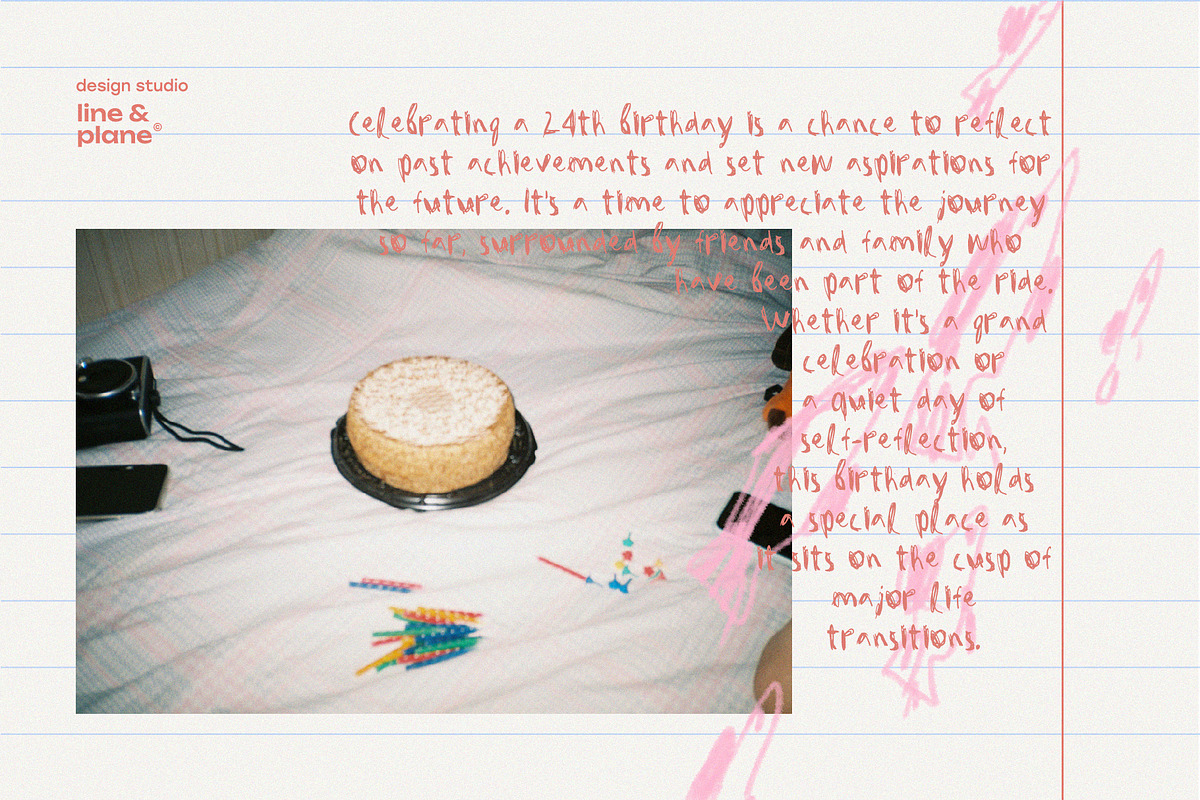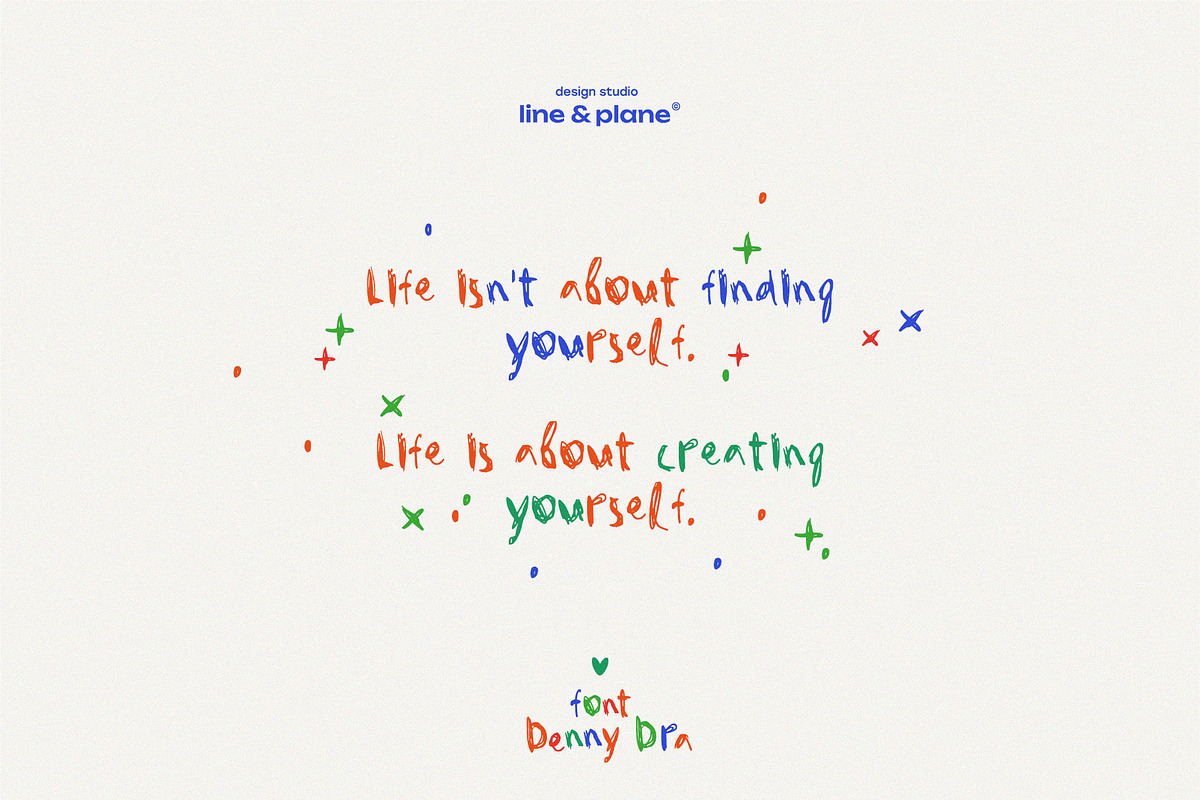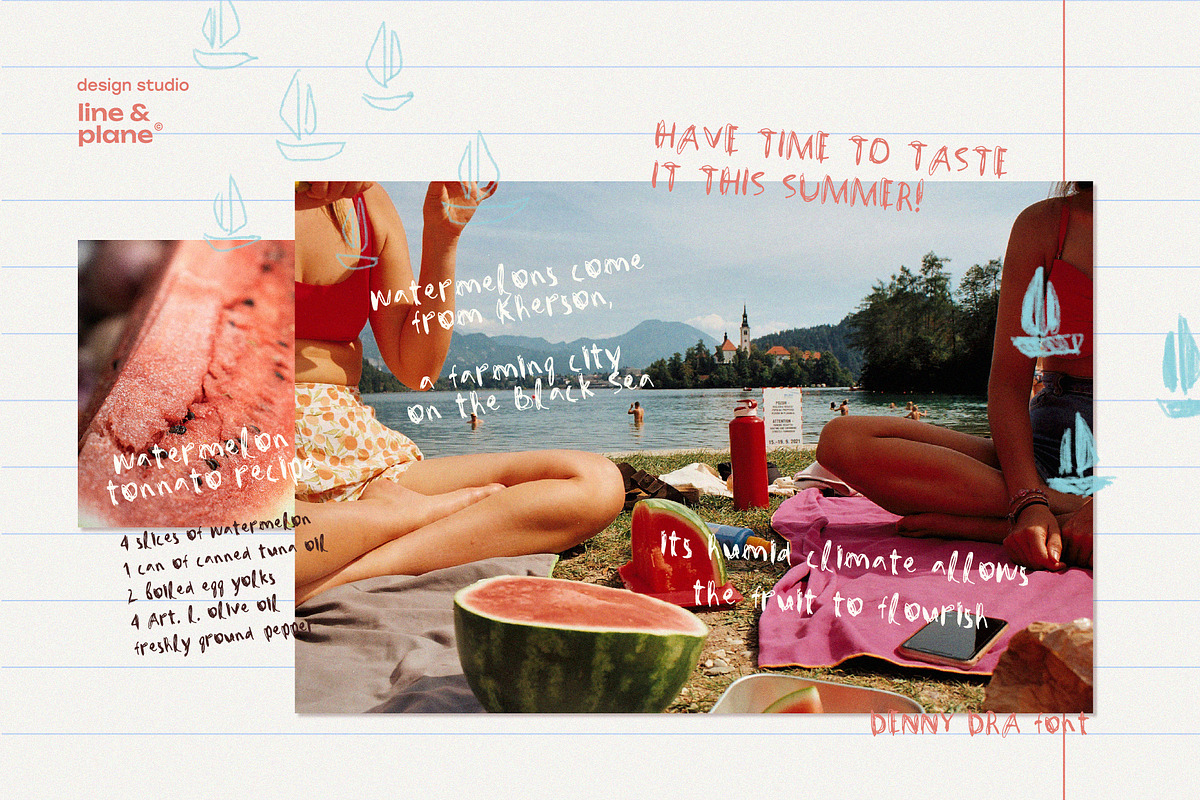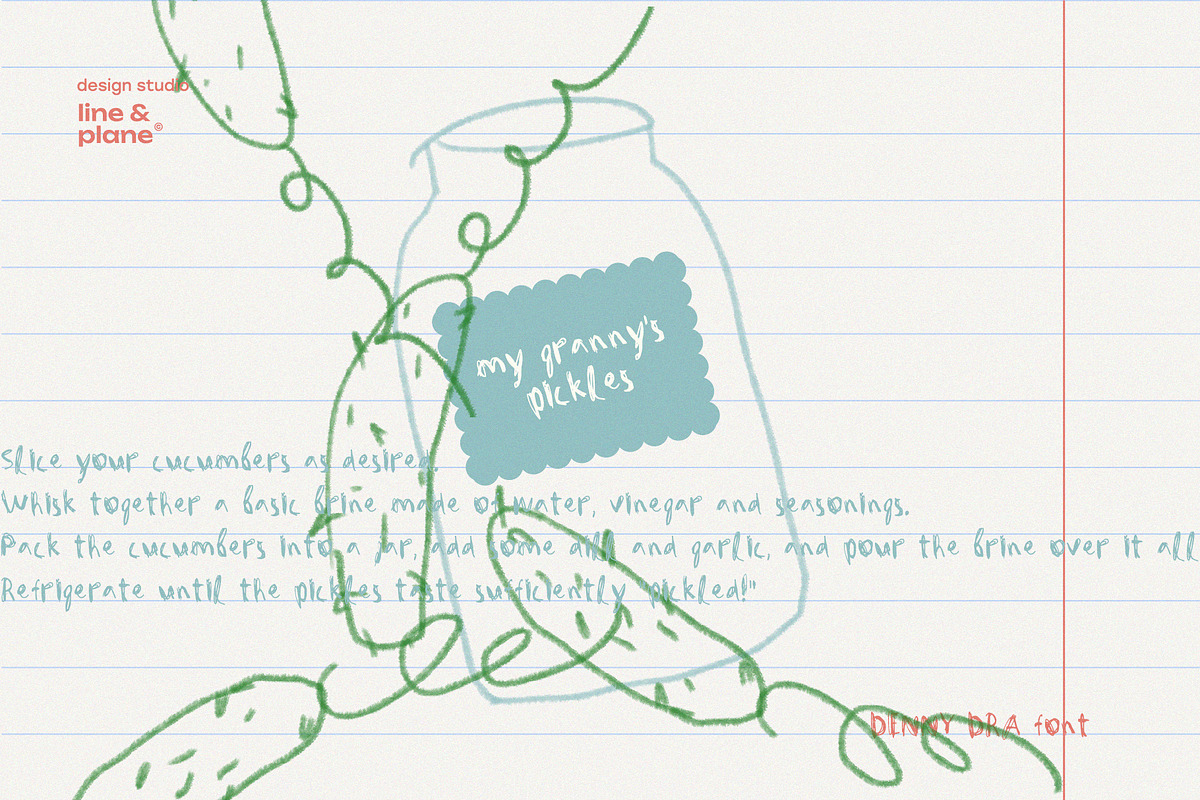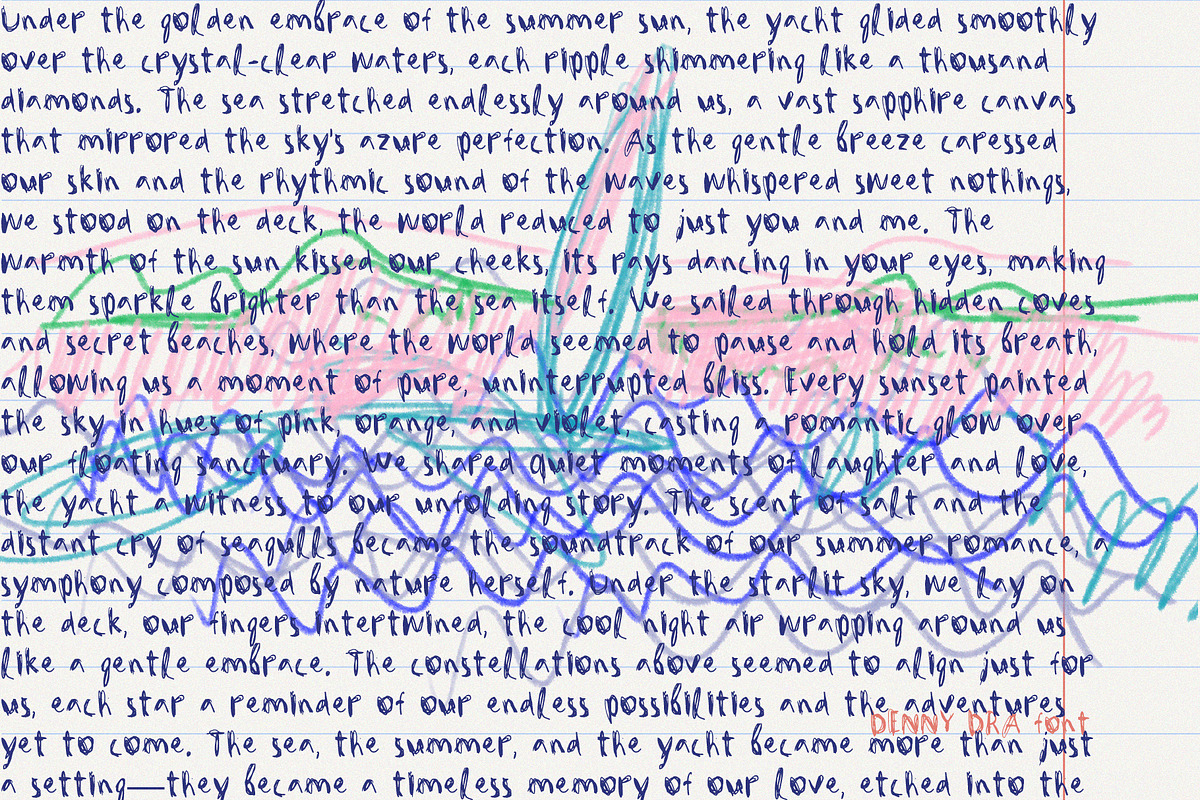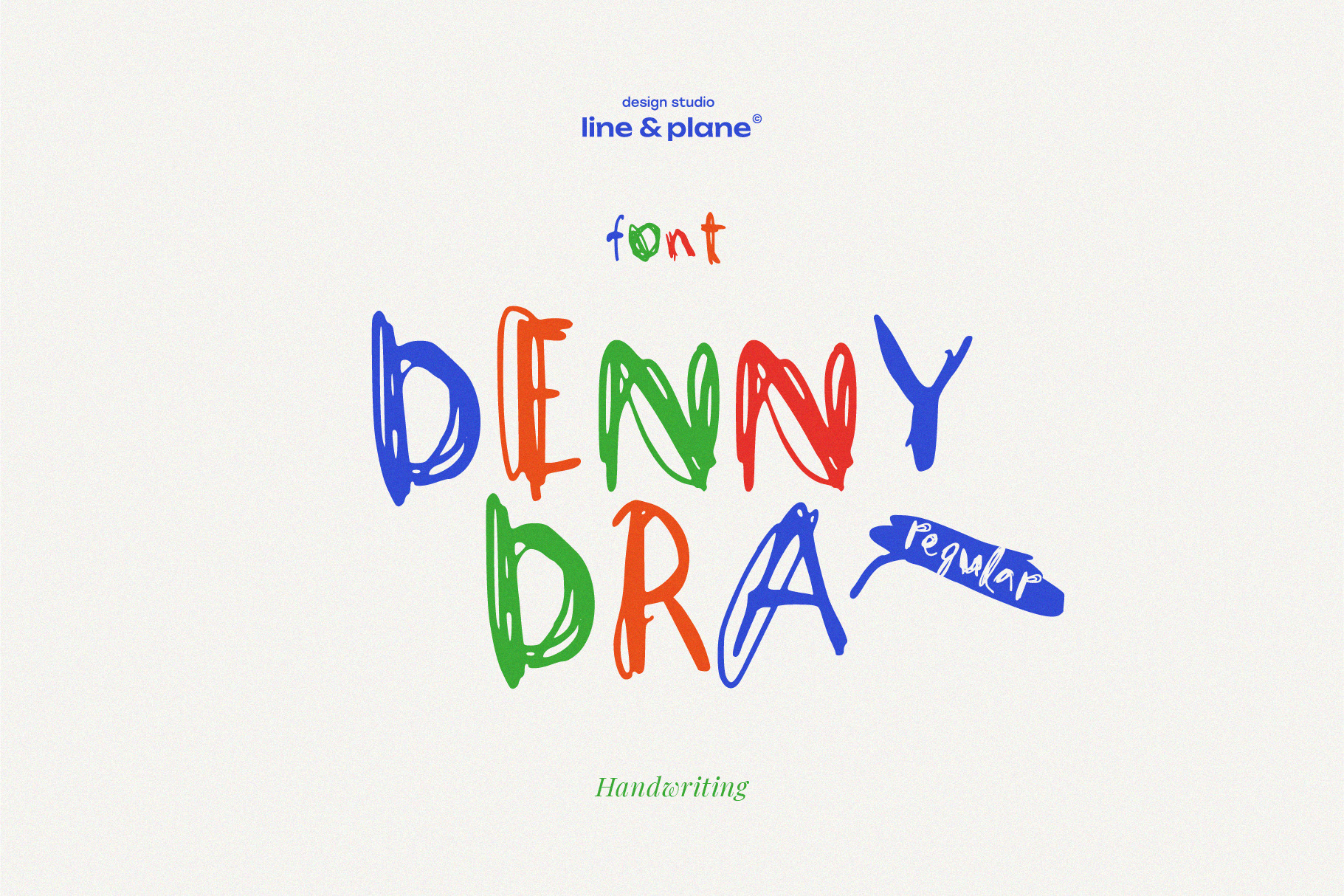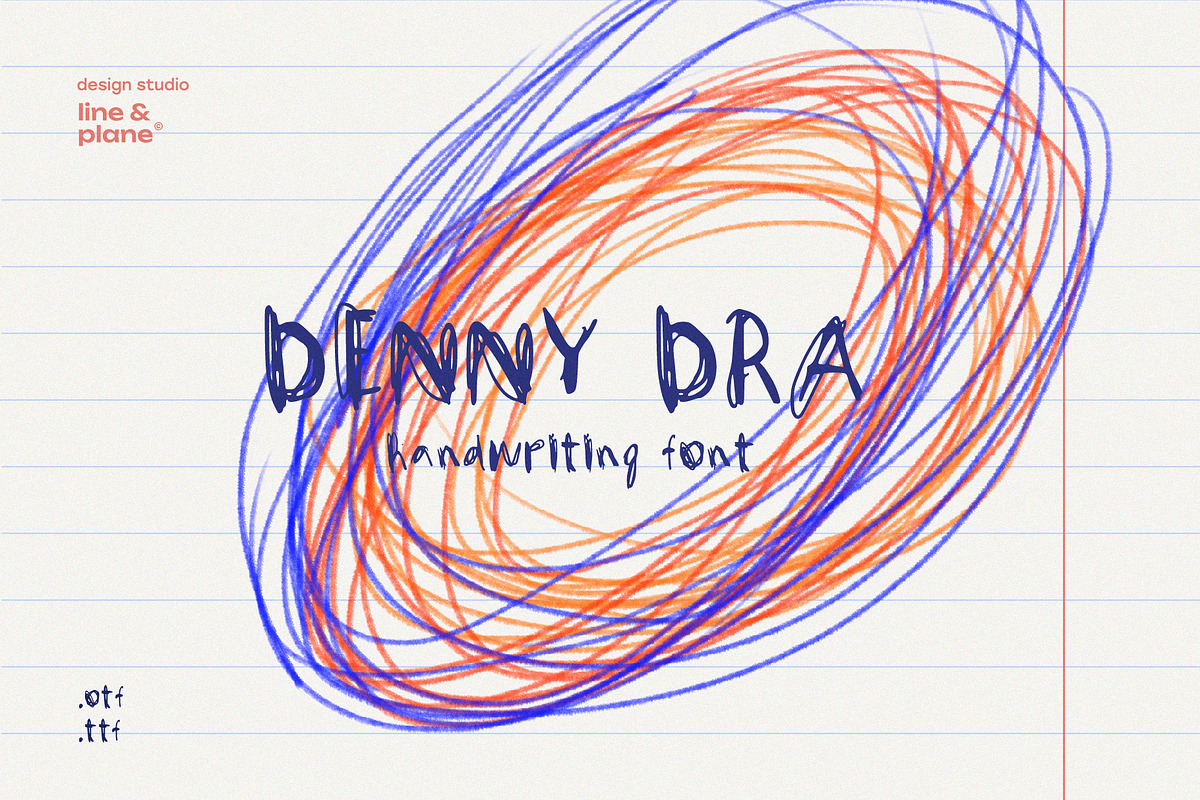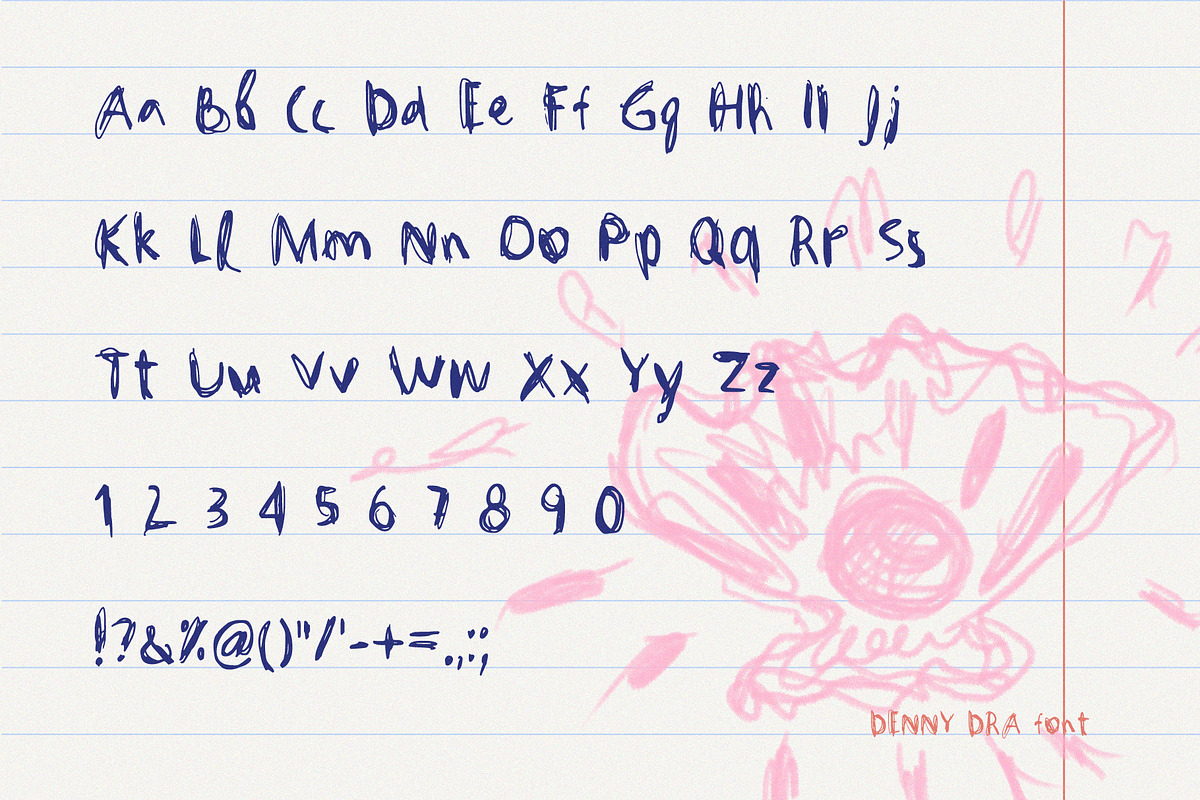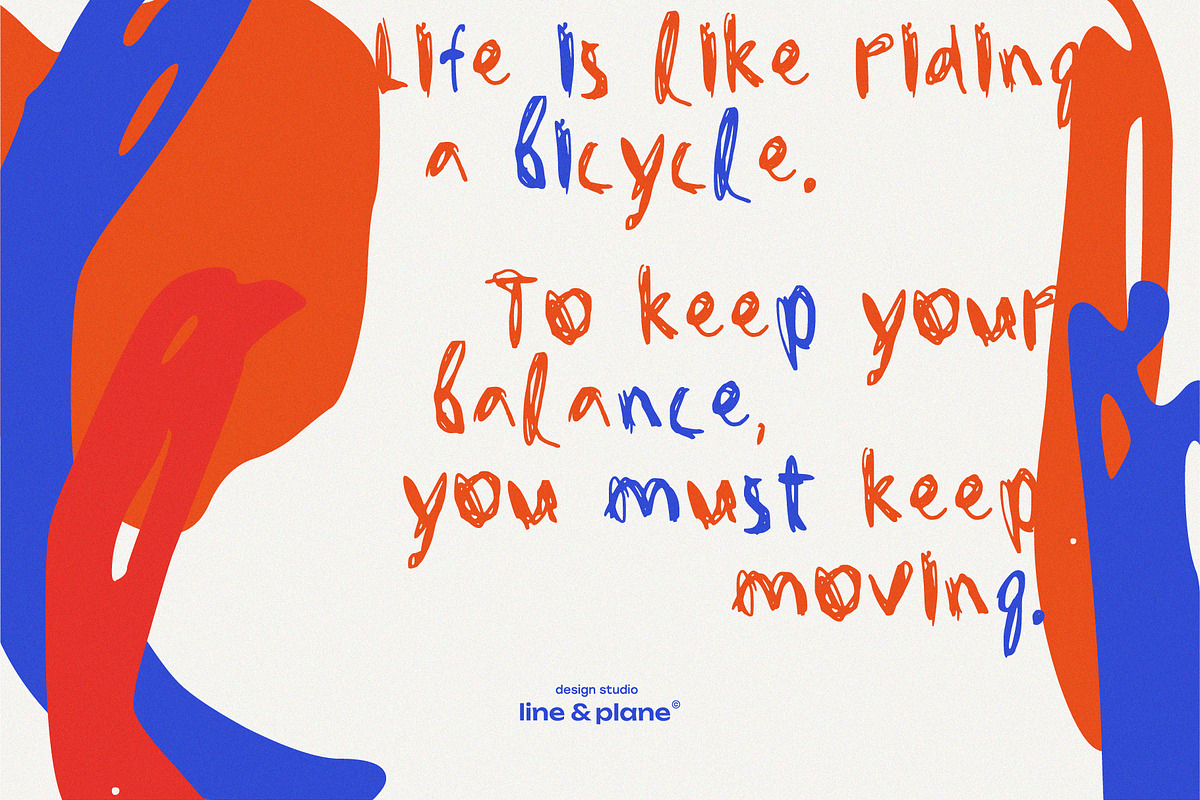
Denny Dra Font - Regular Handwriting
Introducing my new cool handwriting font, a perfect blend of style and modern flair that transforms every letter into a work of art. Each stroke exudes a natural flow, capturing the essence of handwritten charm with a contemporary twist.
Whether you're crafting personal notes, creating stylish invitations, or designing graphics, this font adds a unique touch of personality.
The beauty of this font lies in its ability to convey emotion and character with every character. It breathes life into your words, making them stand out and resonate with your audience.
Embrace the art of handwriting with my new font, and let your text speak volumes in a voice that's distinctly yours.